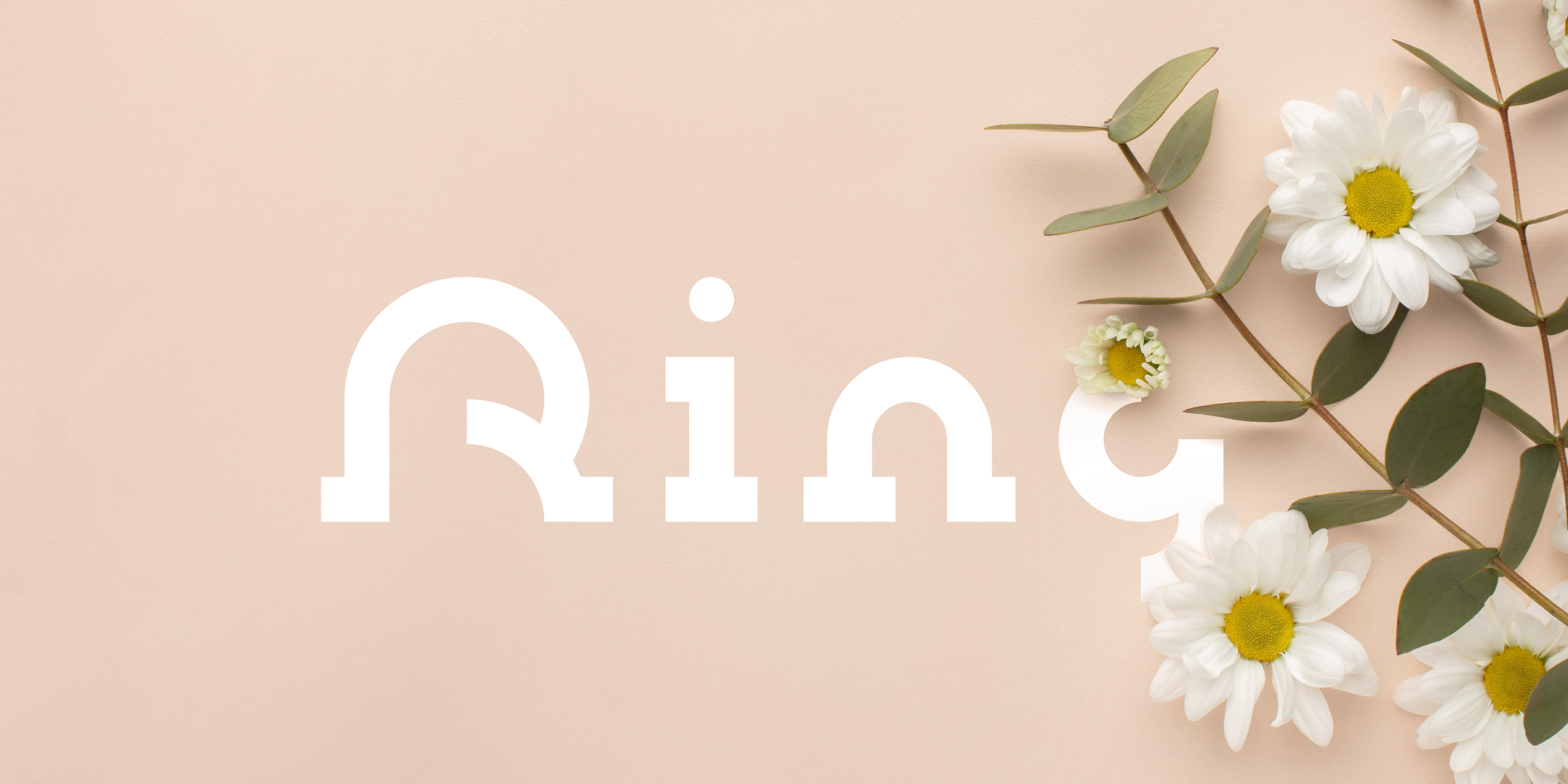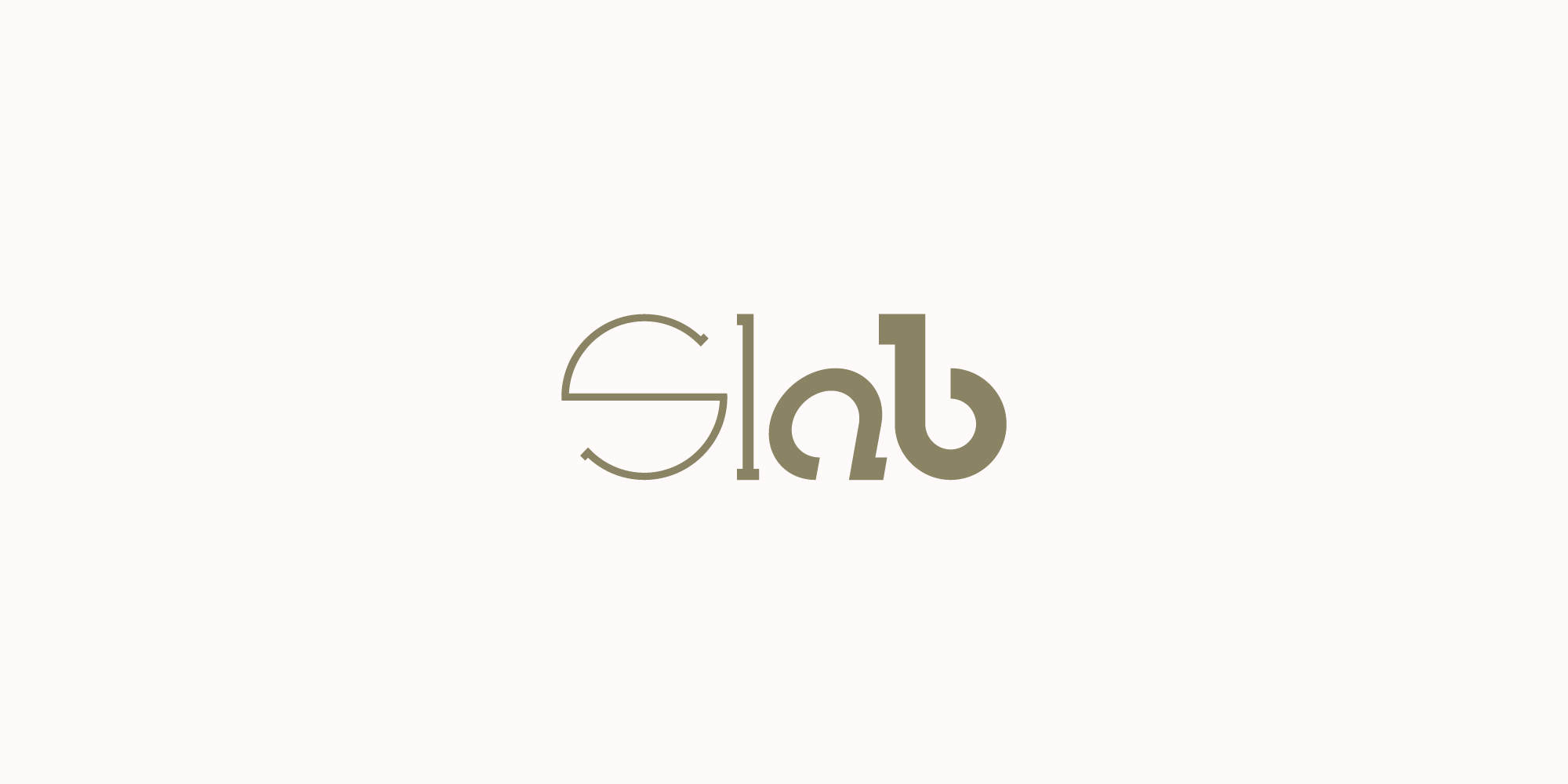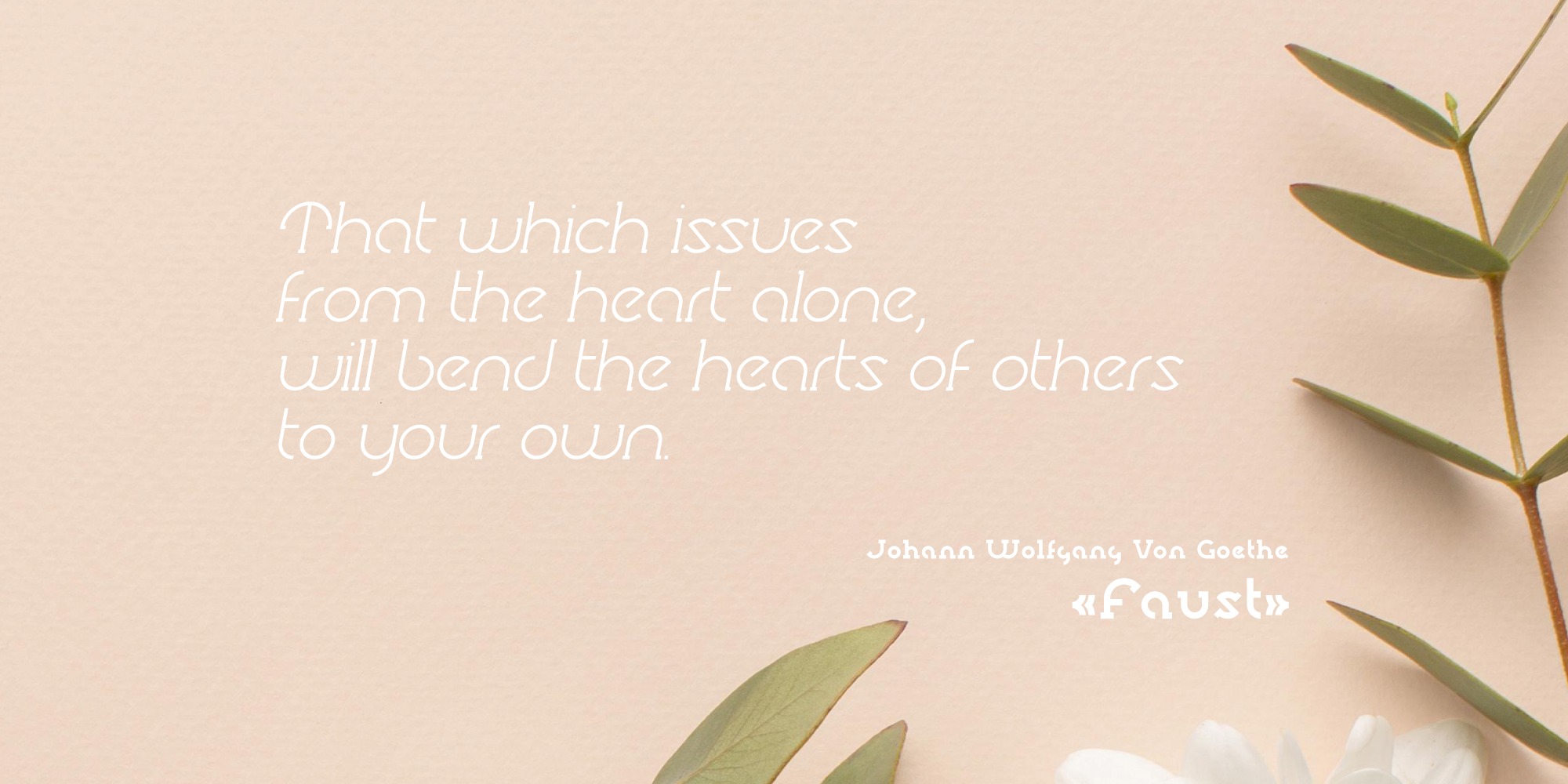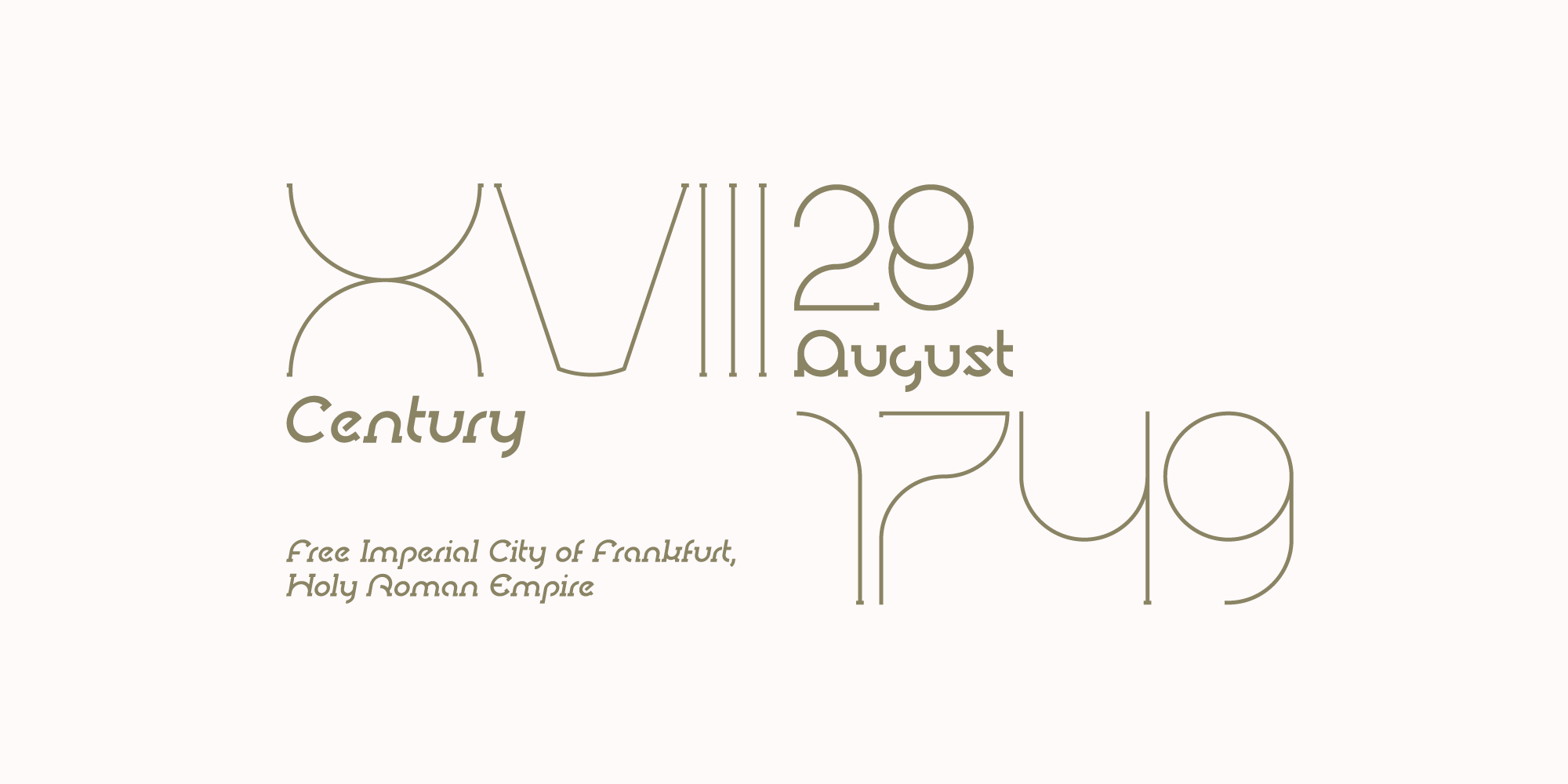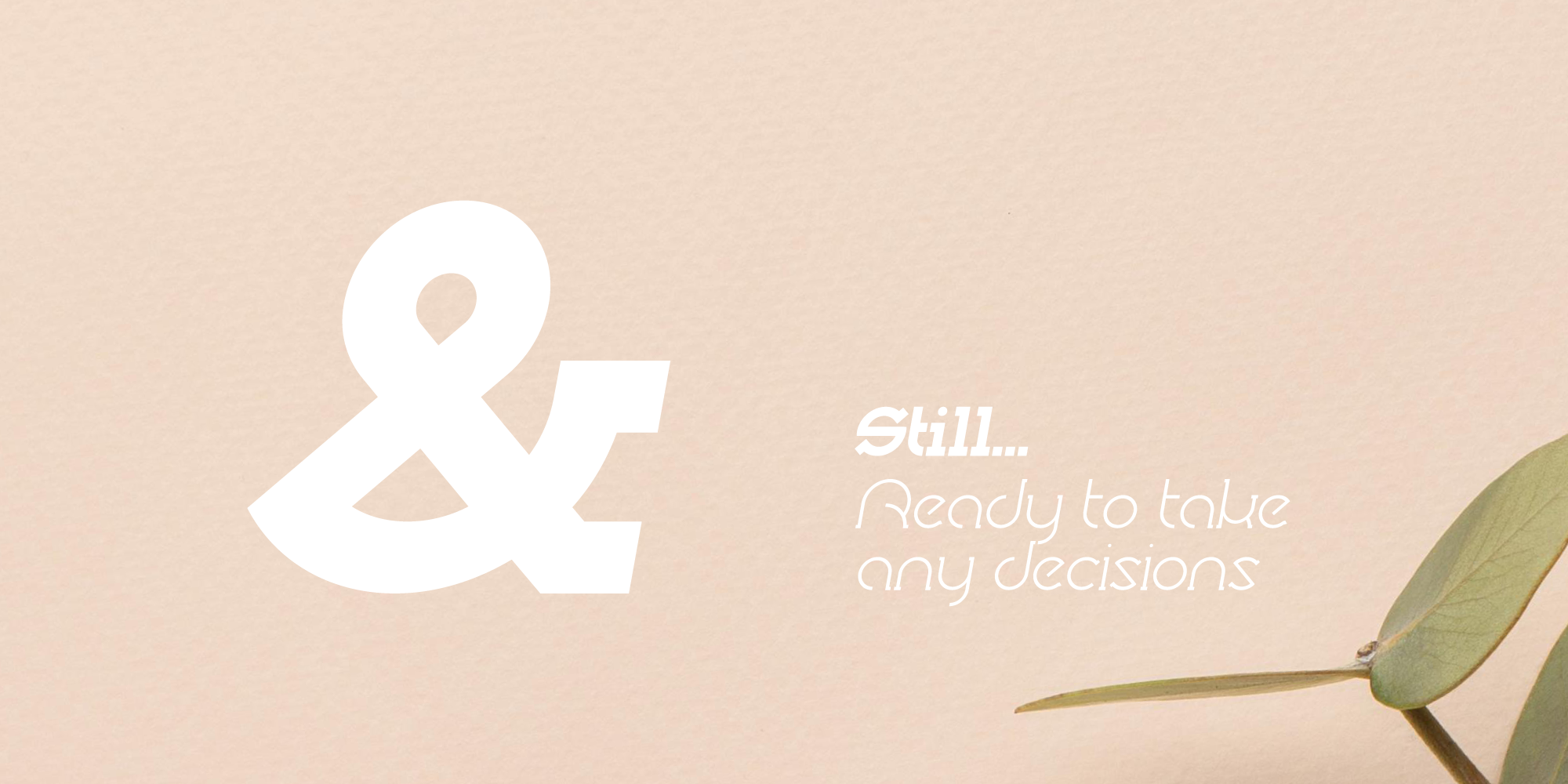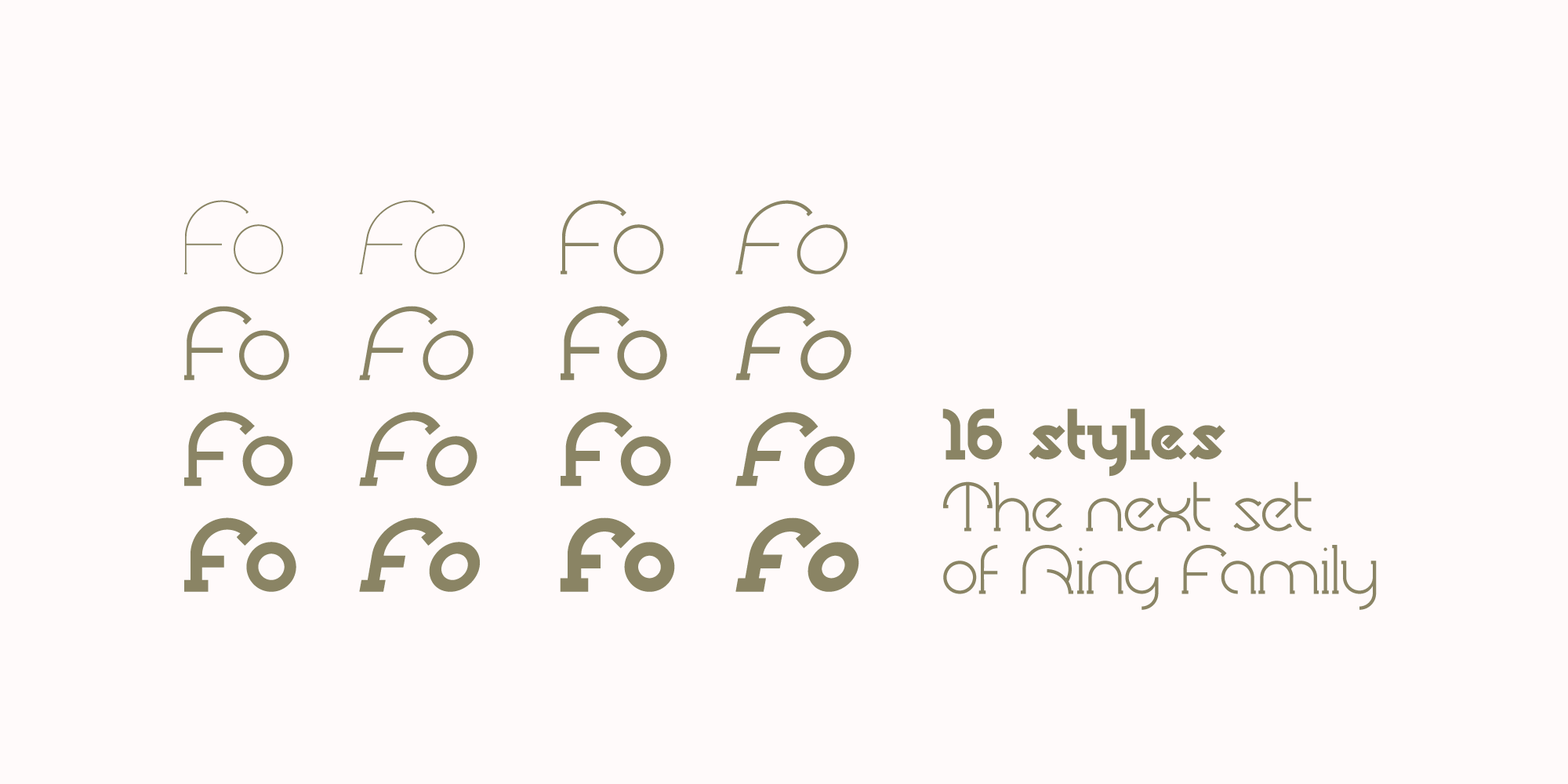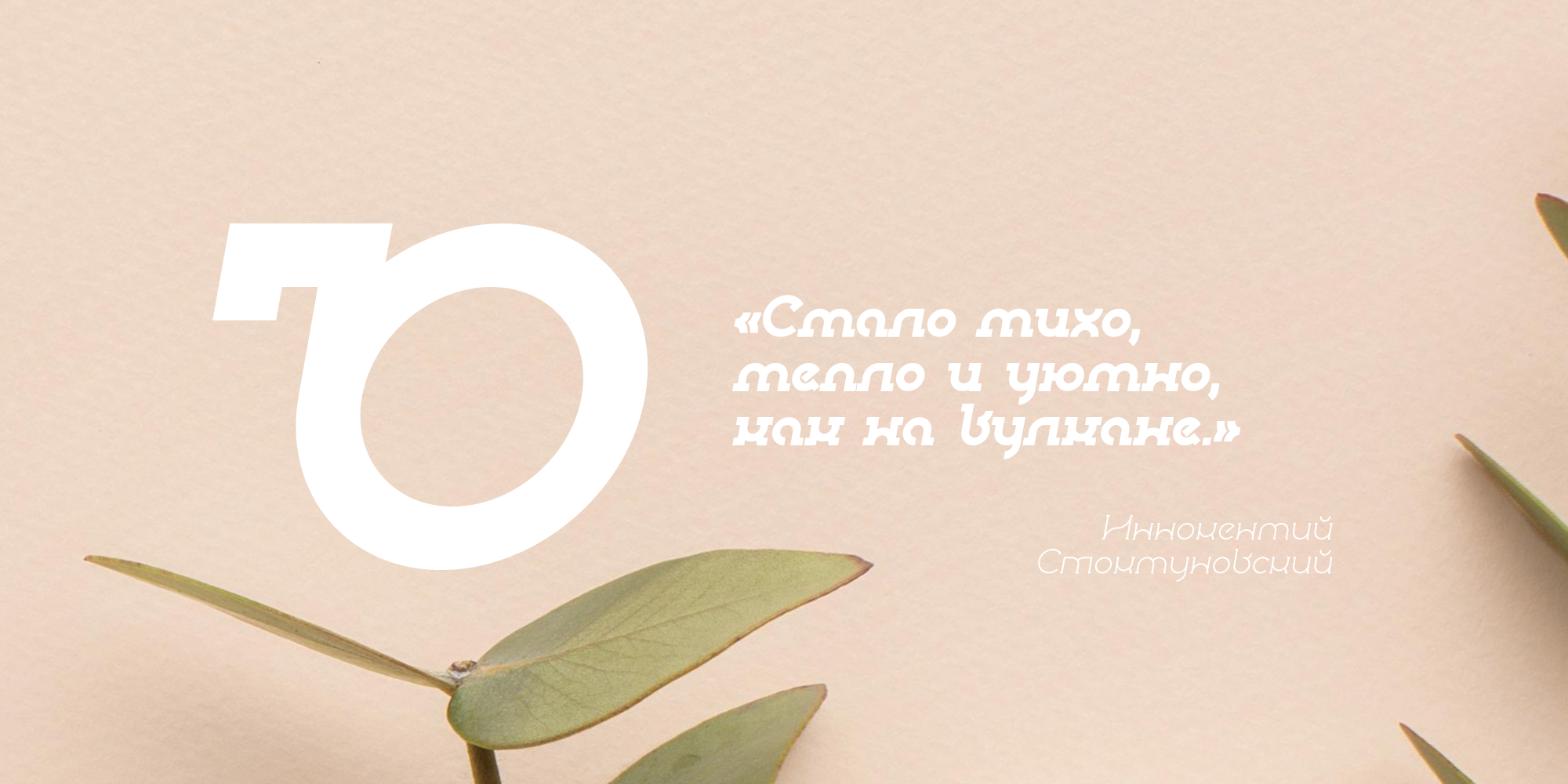
I'm super excited to present the next set of the Ring font family - Ring Slab.
Ring Slab is a geometric slab serif typeface based on the original Ring font and inspired by classical writers. Ring Slab comes in 16 styles, ranging from Thin to Black. Fonts of the Ring Family is the perfect choice for headlines, logos, branding, packaging, publications, and websites.
Ring Slab is still ready to take any decisions.
The future of the big font family has come closer!